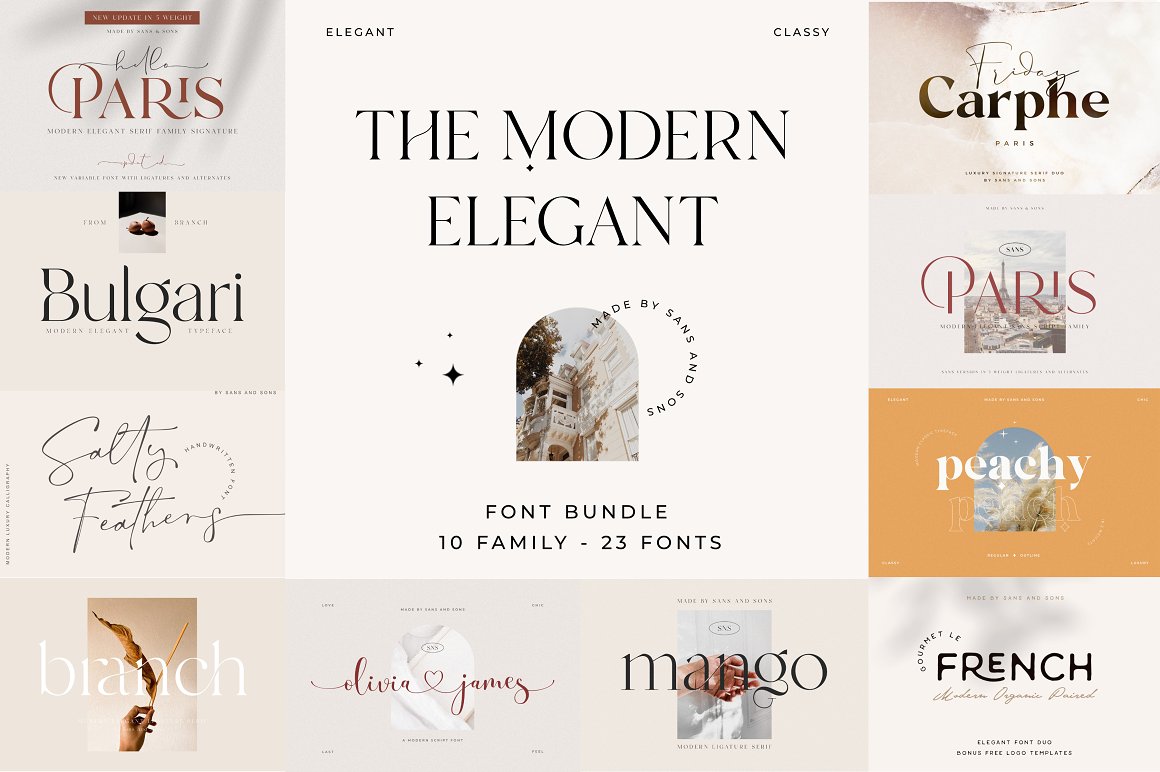
The Modern Elegant Font Bundle + Bonus
This bundle contains 23 typefaces including 10 high-quality font families. Our best-selling unique fonts from Sans Serif, Serif, and Script Font all with modern elegant, and stylish looks. The bundle also includes bonus vectors for your artwork and logos in .eps or .ai format.
Fonts Included:
5107353 Branch Modern Ligature Serif
5535152 Mango Modern Serif
575295230 Salty Feathers Modern Script
3712038 Le French Organic Paired Duo
5681872 Peach Modern Chic Serif
5421579 Hello Paris Modern Elegant Sans
3912521 Carphe Modern Luxury Font
5663981 Olivia James Chic Font